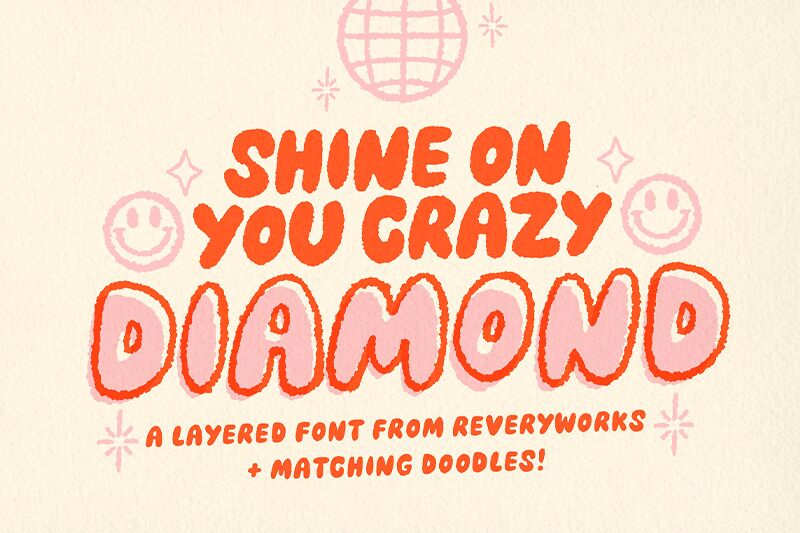
Crazy Diamond font was created by ReveryWorks. A high-contrast typeface with a very playful nature. Its rounded and irregular shapes resemble cartoonish elements with enticing rhythmic elements, and a moderate contrast makes sure it attracts the playfulness of readers.
Its unapologetically casual look is perfect for the cover of an event poster, children’s books, advertising flyers or the opening screen of a game title!